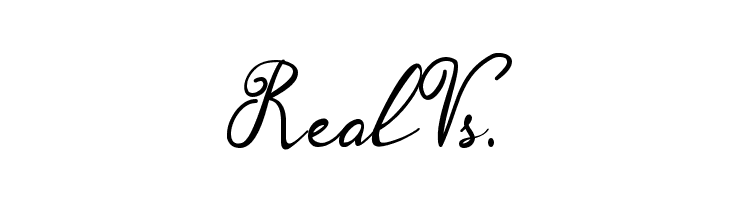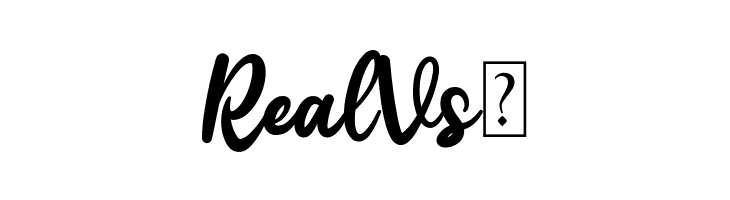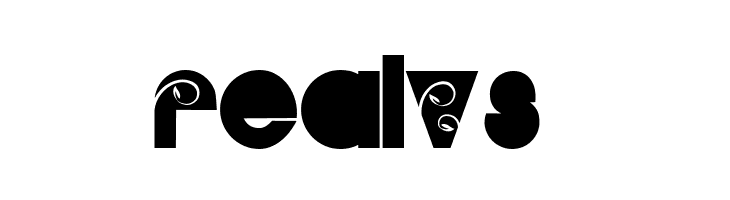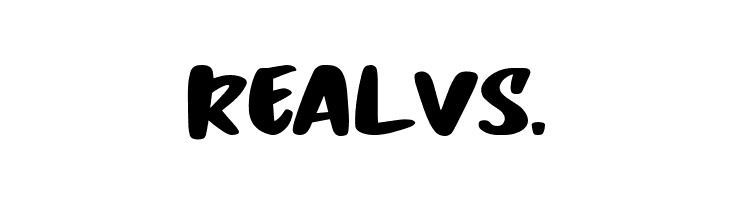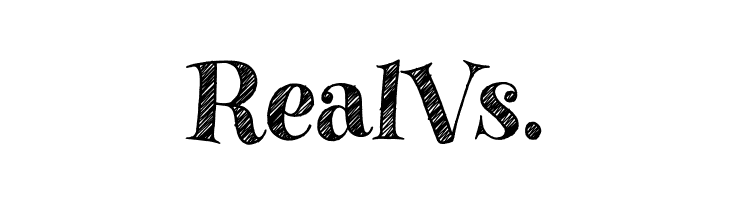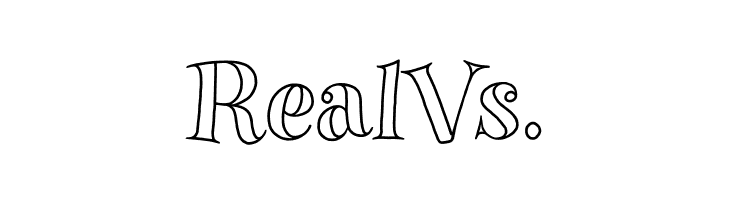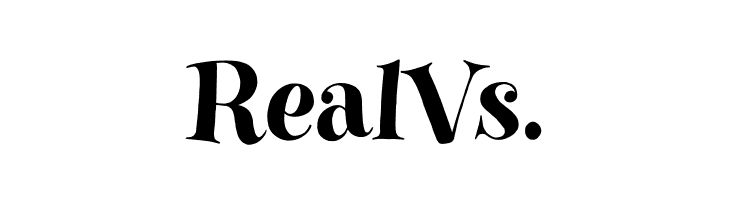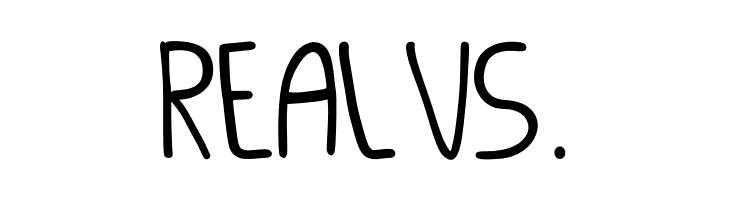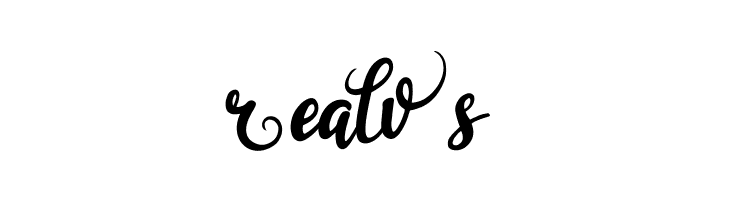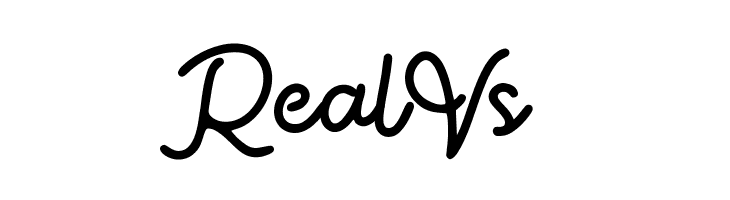
• Gailenia
A graceful, cursive script font with elegant, flowing strokes.
• Galahad
A bold, hand-drawn font with a playful and energetic style.
• Galahad
A bold, textured, hand-drawn font with an energetic and playful style.
• Galaxy
A bold, futuristic font with playful star motifs and rounded, blocky characters.
• Galaxy Travels
A bold, futuristic font with a three-dimensional outline and geometric style.
• galgadot
An elegant and flowing script font with graceful curves and loops.
• GalgatorFreeBold
A bold, modern sans-serif font with clean lines and strong geometric shapes.
• Galinah
An elegant and flowing script font with intricate decorative elements.
• Gallagher Gallagher
• Gallant
A bold, dynamic script font with elegant, flowing cursive letters.
• Gallatone
A fluid and elegant script font with a personal touch.
• Gallilea
A lively, cursive font with elegant connections and a dynamic flow.
• GAME
A bold, angular font with a futuristic and geometric design.
• Game Battles 2 Regular
• Game Commands
A bold, geometric font with a retro video game aesthetic.
• Gamelia
A graceful and flowing script font with elegant cursive letters.
• Games Italic
A bold, italicized font with a futuristic, sporty design and outlined characters.
• Games Regular
A bold, geometric font with outlined characters and a modern style.
• Gamlangdee
A modern, geometric font with clean lines and a structured appearance.
• Gamos
A graceful script font with flowing, interconnected letters and high contrast.
• GANDUL MATHENG Bold
A bold, playful handwritten font with rounded edges and consistent stroke thickness.
• GANDUL MATHENG Bold